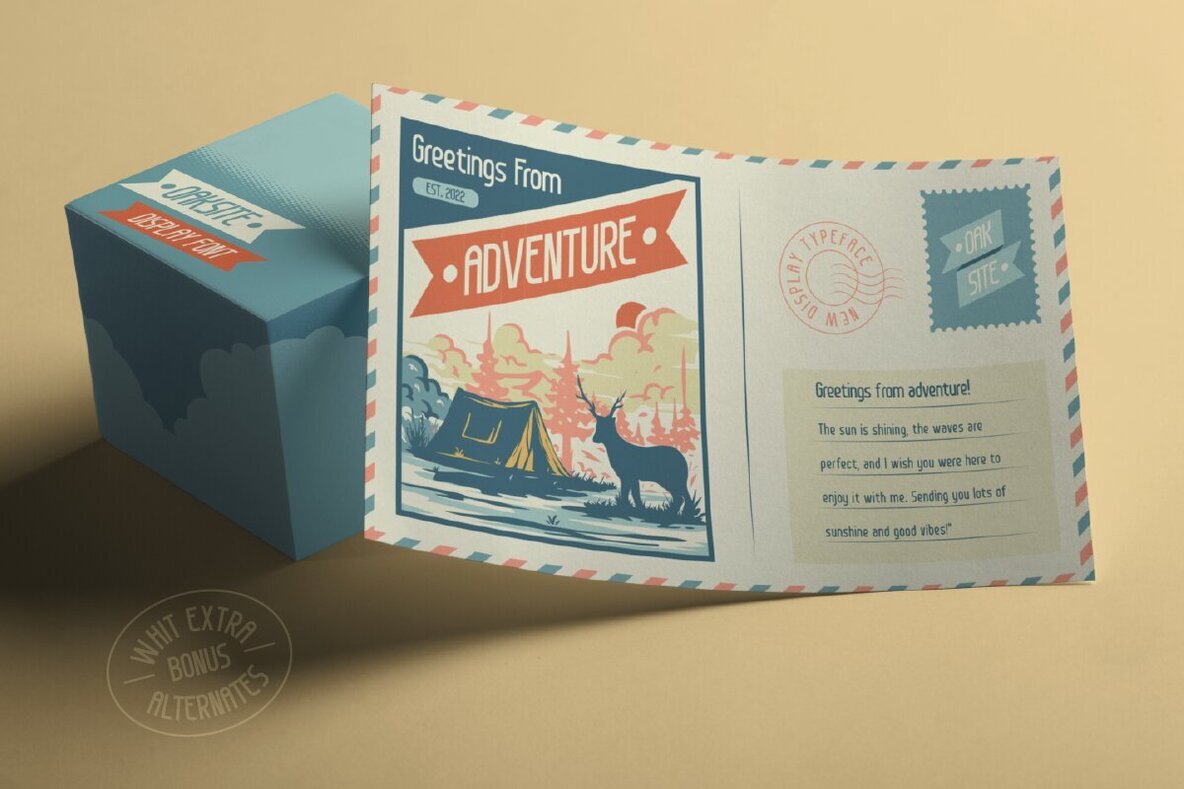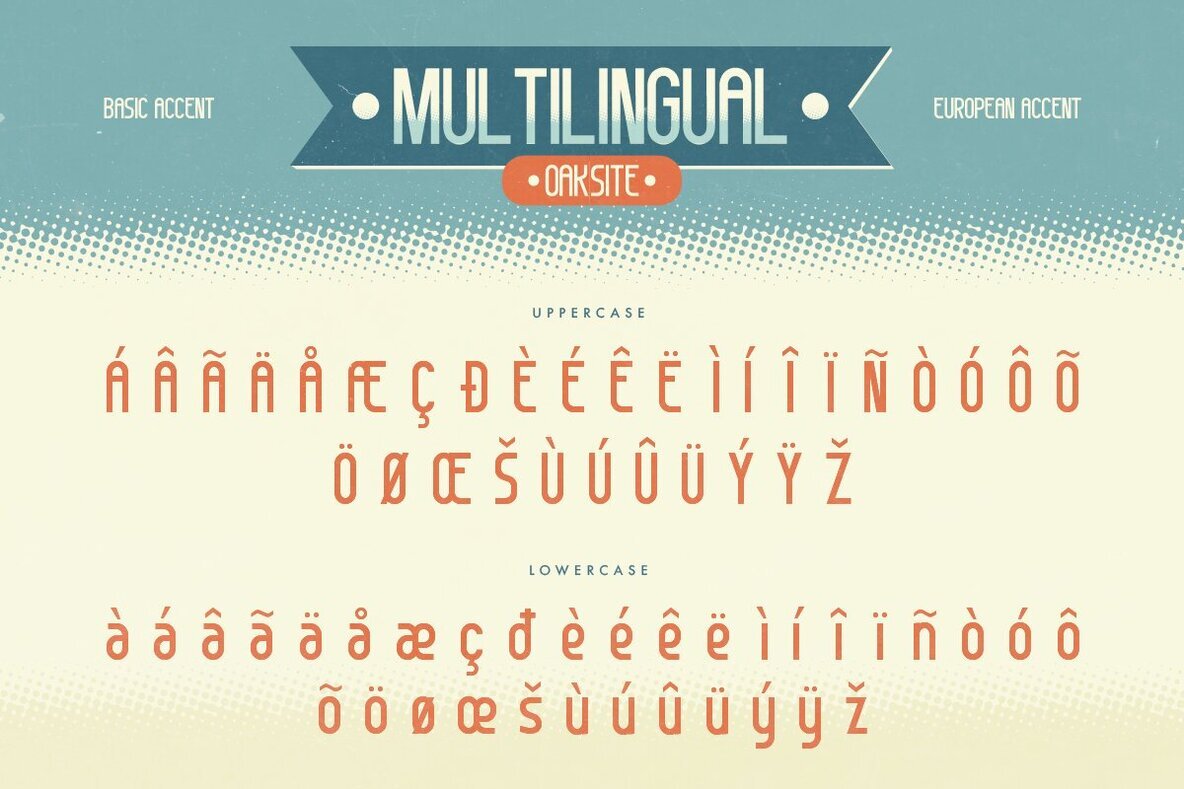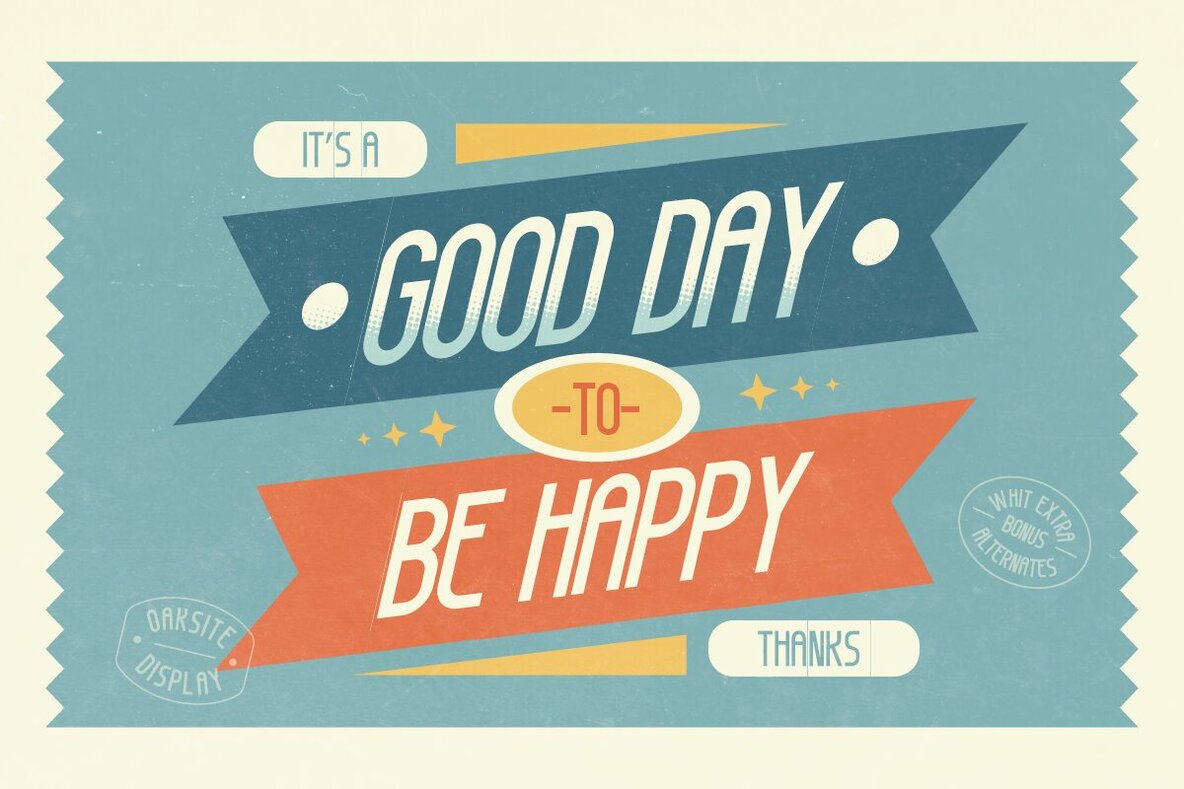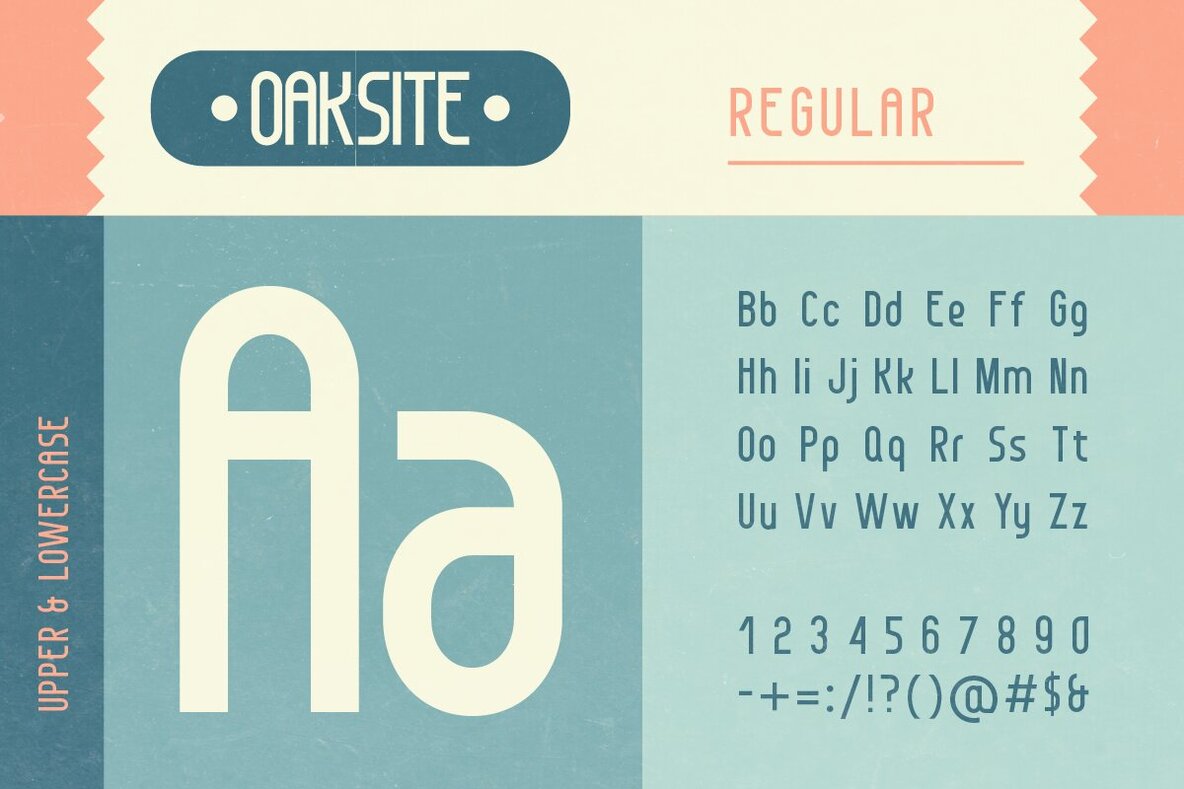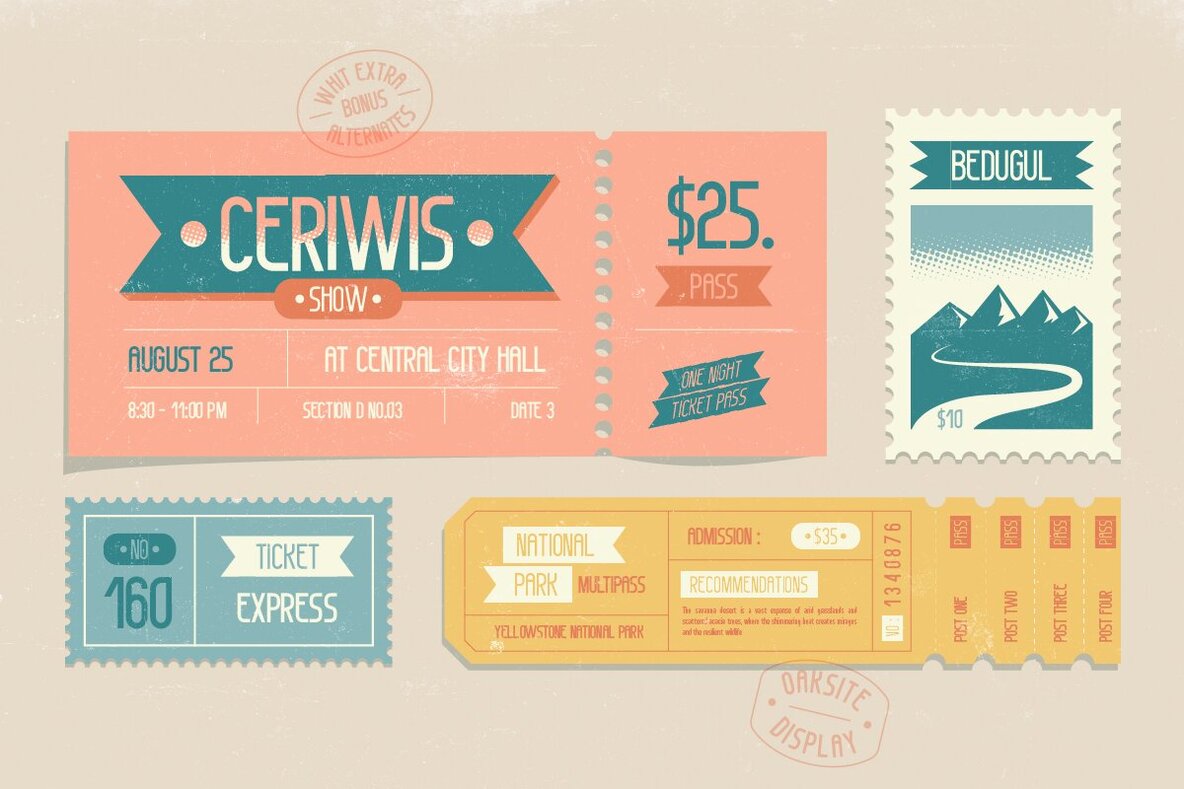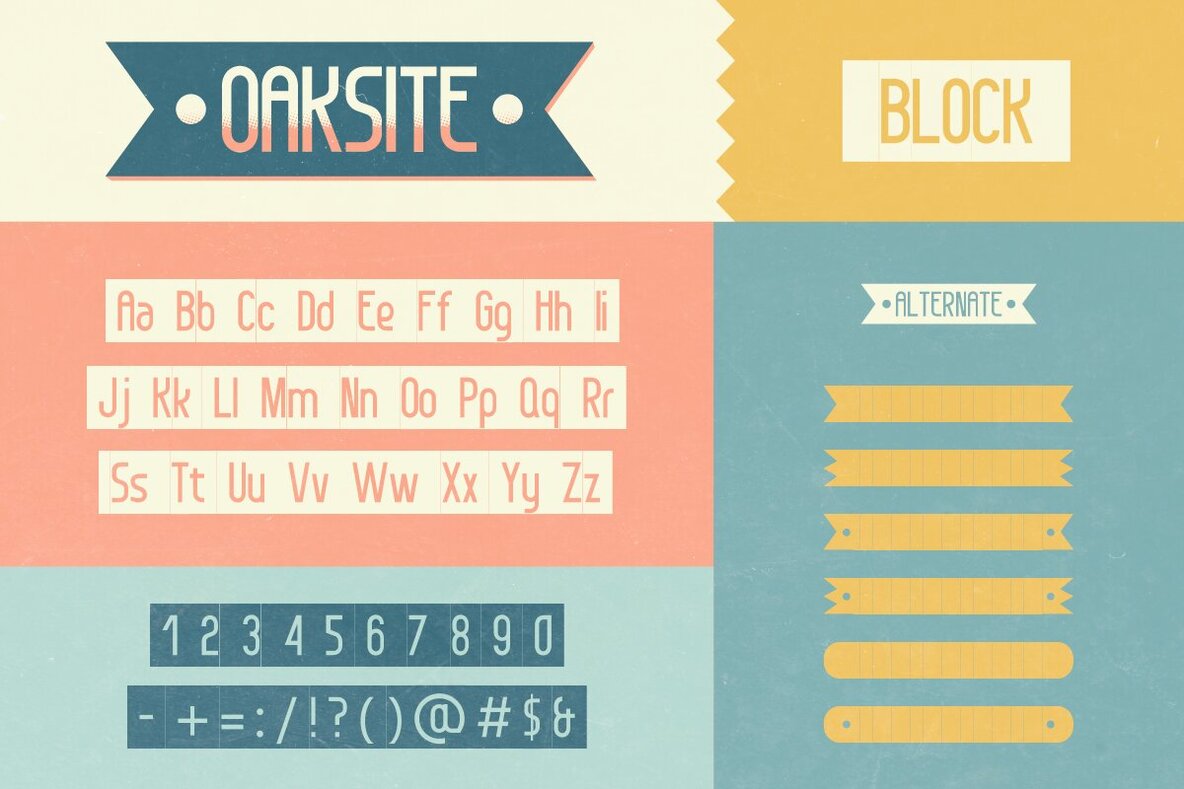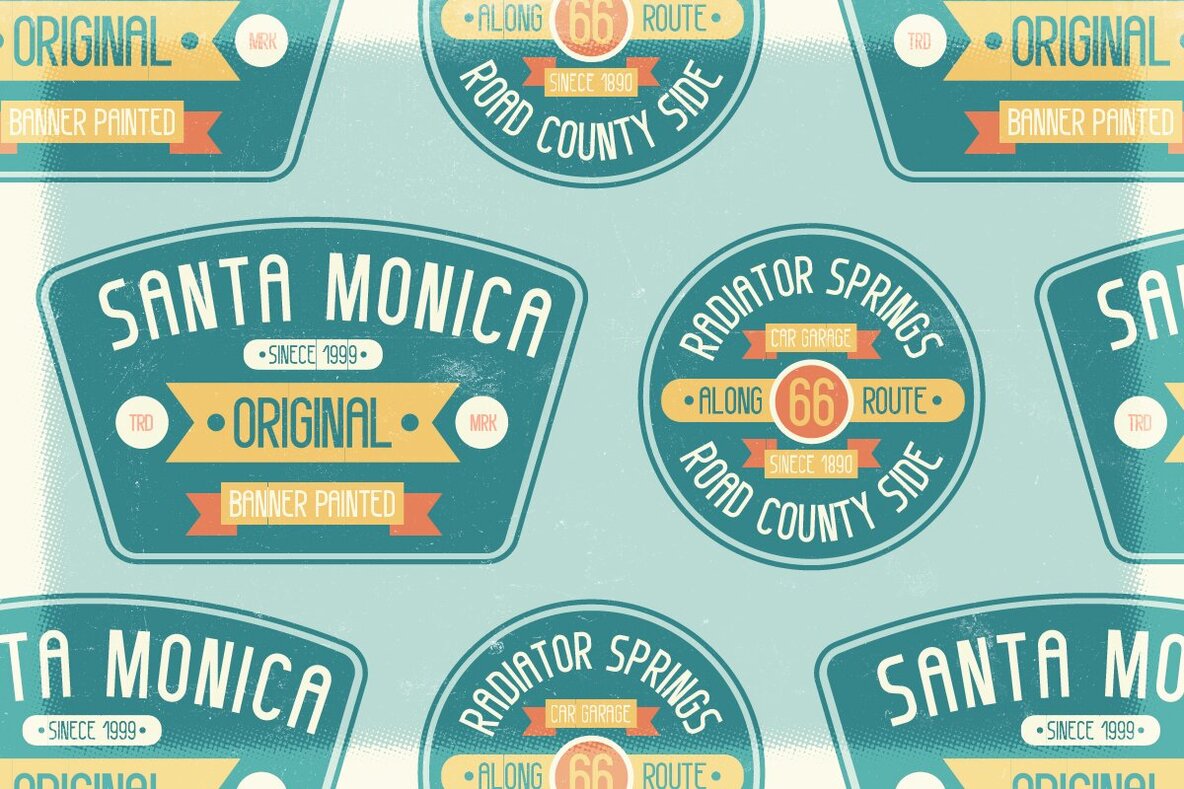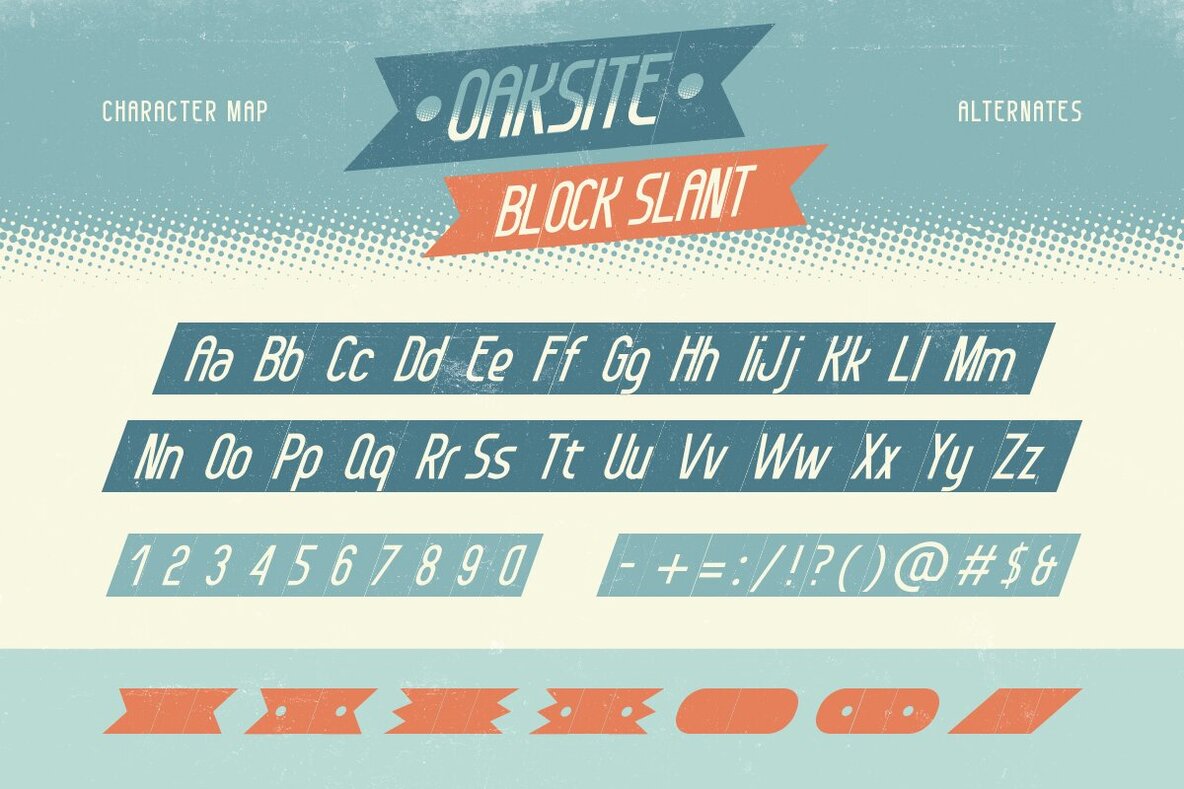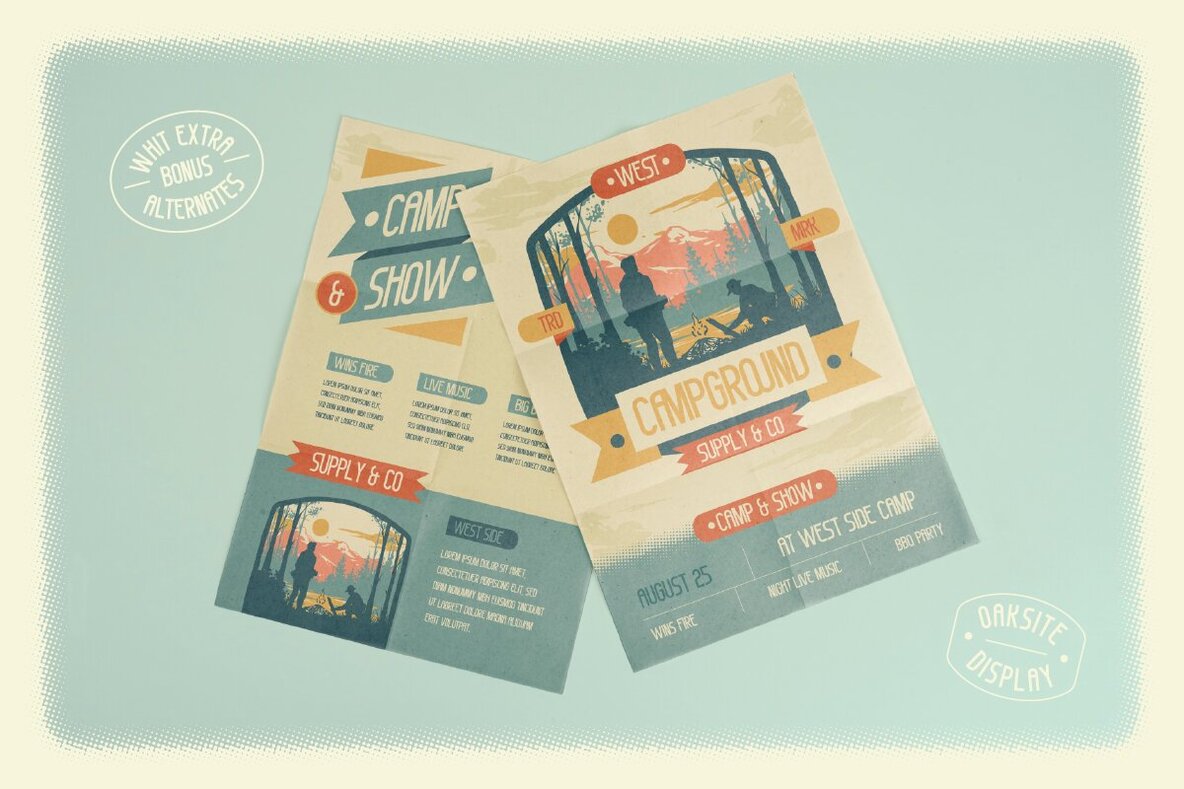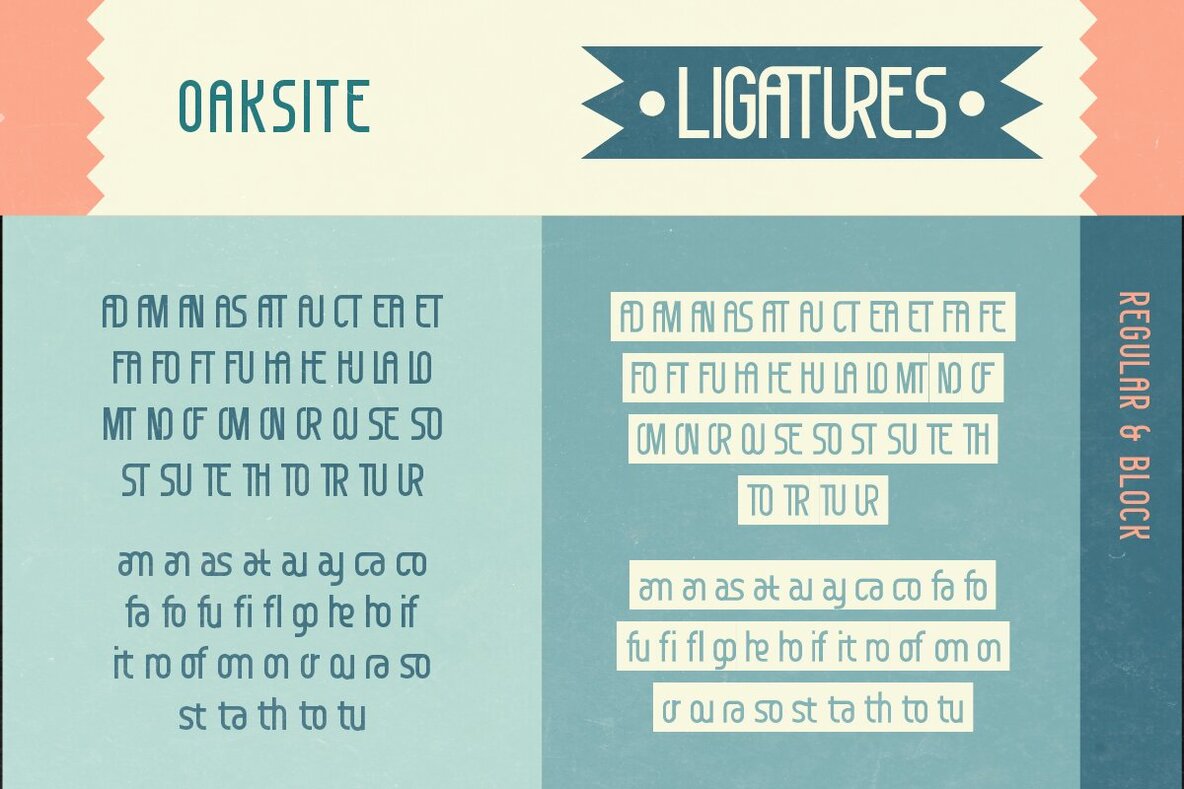
Oaksite Font
Oaksite Regular
Oaksite Block
Oaksite Block Slant
Oaksite is a clean and minimalist banner font designed for simplicity and impact. Available in three styles—regular, block, and block slant—its versatility makes it ideal for a variety of design needs. Whether creating banners, posters, logos, or merchandise, Oaksite brings a bold yet understated touch to any project. Its informal and approachable aesthetic fits perfectly with fun, creative designs.
The font includes a complete A-Z set in both uppercase and lowercase, along with numbers, punctuation, alternates, ligatures, and multilingual support. This comprehensive feature set ensures that Oaksite can meet the requirements of diverse design tasks. Its straightforward elegance allows designers to maintain a sharp, modern feel in their work while enjoying the flexibility of multiple styles.